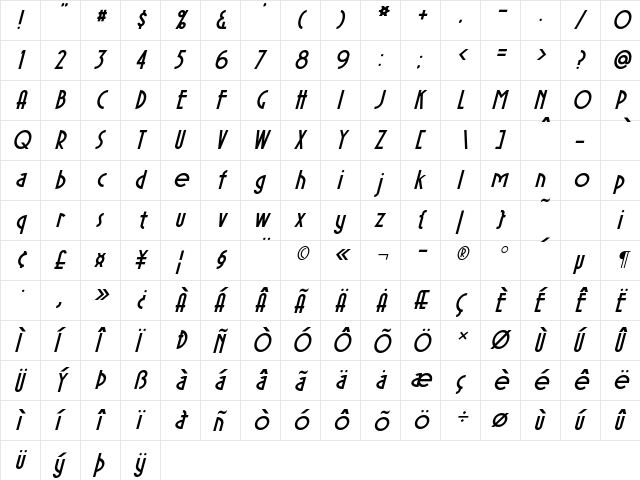
Sierra Madre Italic
| Foundry | Neale Davidson |
| Designer | Neale Davidson |
Design Context for Sierra Madre Typeface
Sierra Madre takes a measured approach to typography — its balanced proportions and neutral character make it a reliable workhorse for both digital and print work. The slanted form adds forward momentum and visual energy.
Pro Tip: Use Sierra Madre for emphasis, pull quotes, and subheadings where its slanted energy can add rhythm to the layout.